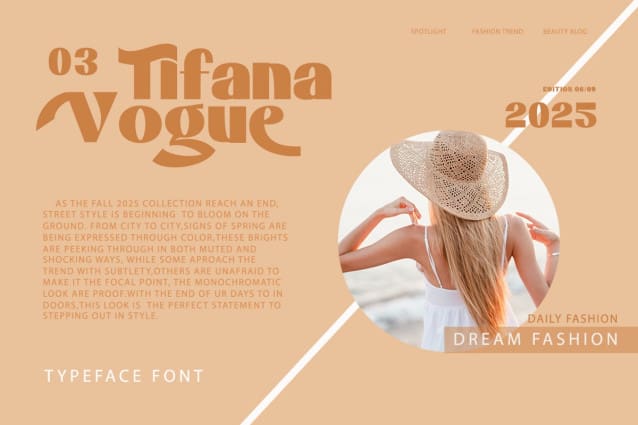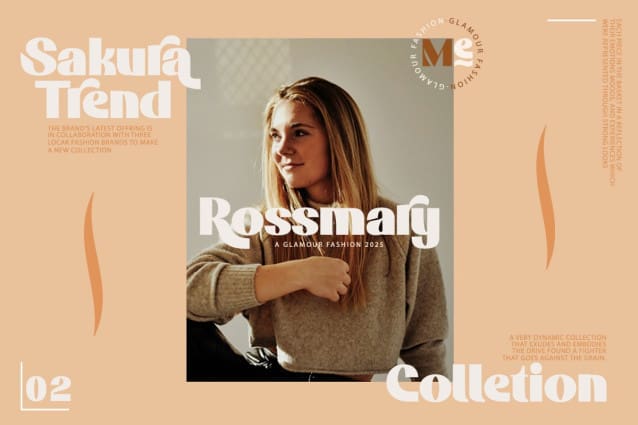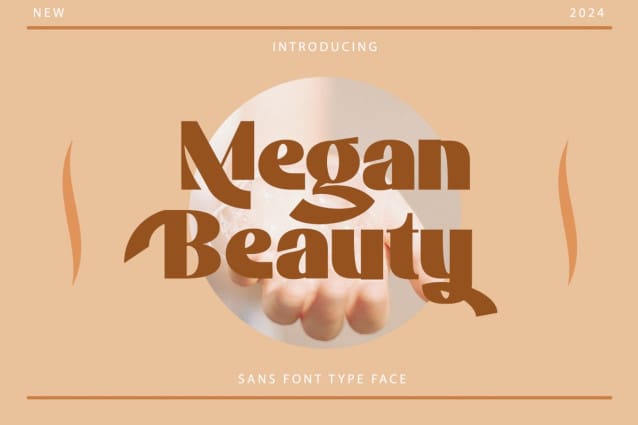
Megan Beauty Font
Megan Beauty Font is a modern Display Sans font type face packaged in a modern and classy style, complete with your OpenType feature access to access a large selection of alternative fonts and bindings, the choice of fonts you like from large and small font variations for a luxurious and elegant look.